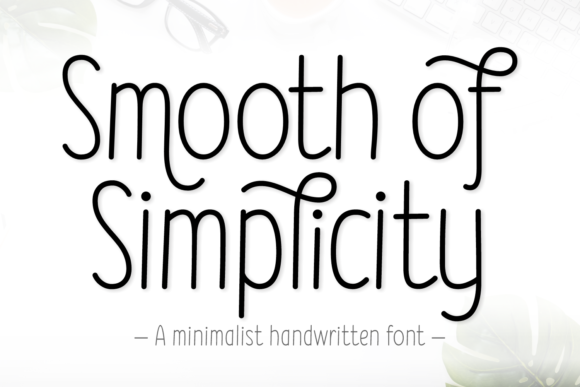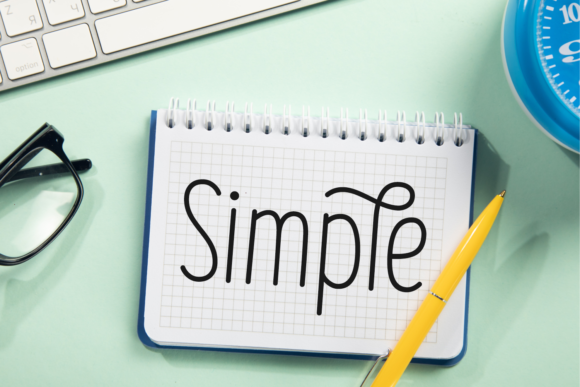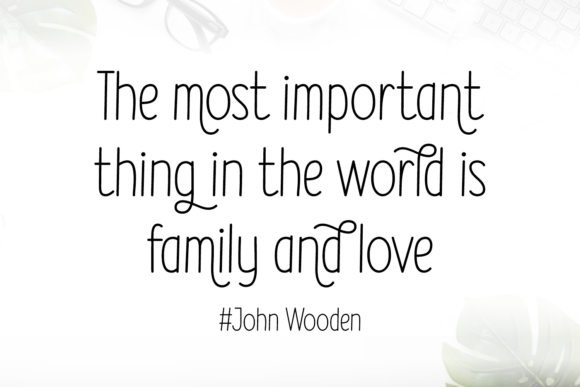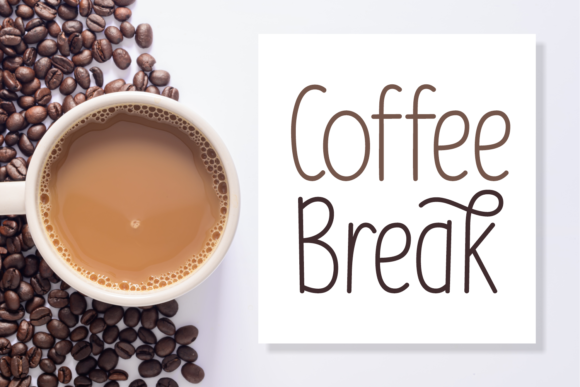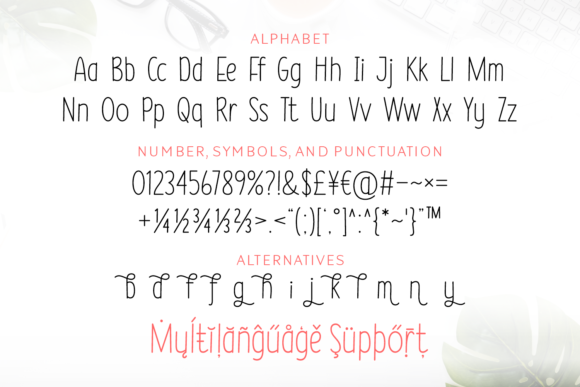
Smooth of Simplicity Font
About Smooth of Simplicity Font
Smooth of Simplicity is a minimalist handwritten font that exudes an elegant touch, making it an ideal choice for a wide range of design applications. This typeface is versatile and well-suited for various creative projects, including design, logo design, blog graphics, style quotes, wedding stationery, art prints, additional design elements, packaging, social media, magazines, fashion, creative branding, editorial design, and web designing.
The simplicity and smoothness of the font contribute to its minimalist aesthetic, making it perfect for designs that require a clean and sophisticated look. Whether used in logo design to convey a sense of modernity, on blog graphics for a contemporary feel, or in wedding stationery for an elegant touch, Smooth of Simplicity adapts seamlessly to diverse design contexts.
Its handwritten style adds a personal and human touch to your projects, enhancing the overall visual appeal. The font’s versatility allows it to be applied to a variety of creative mediums, ensuring that it remains a valuable asset in your design toolkit.
In summary, Smooth of Simplicity is more than just a font; it’s a minimalist handwritten typeface that brings elegance and versatility to your creative projects. Whether you’re working on branding, social media graphics, editorial design, or web projects, this font offers a smooth and sophisticated aesthetic that enhances the visual appeal of your designs. With Smooth of Simplicity, your creative endeavors are bound to achieve a touch of understated elegance.